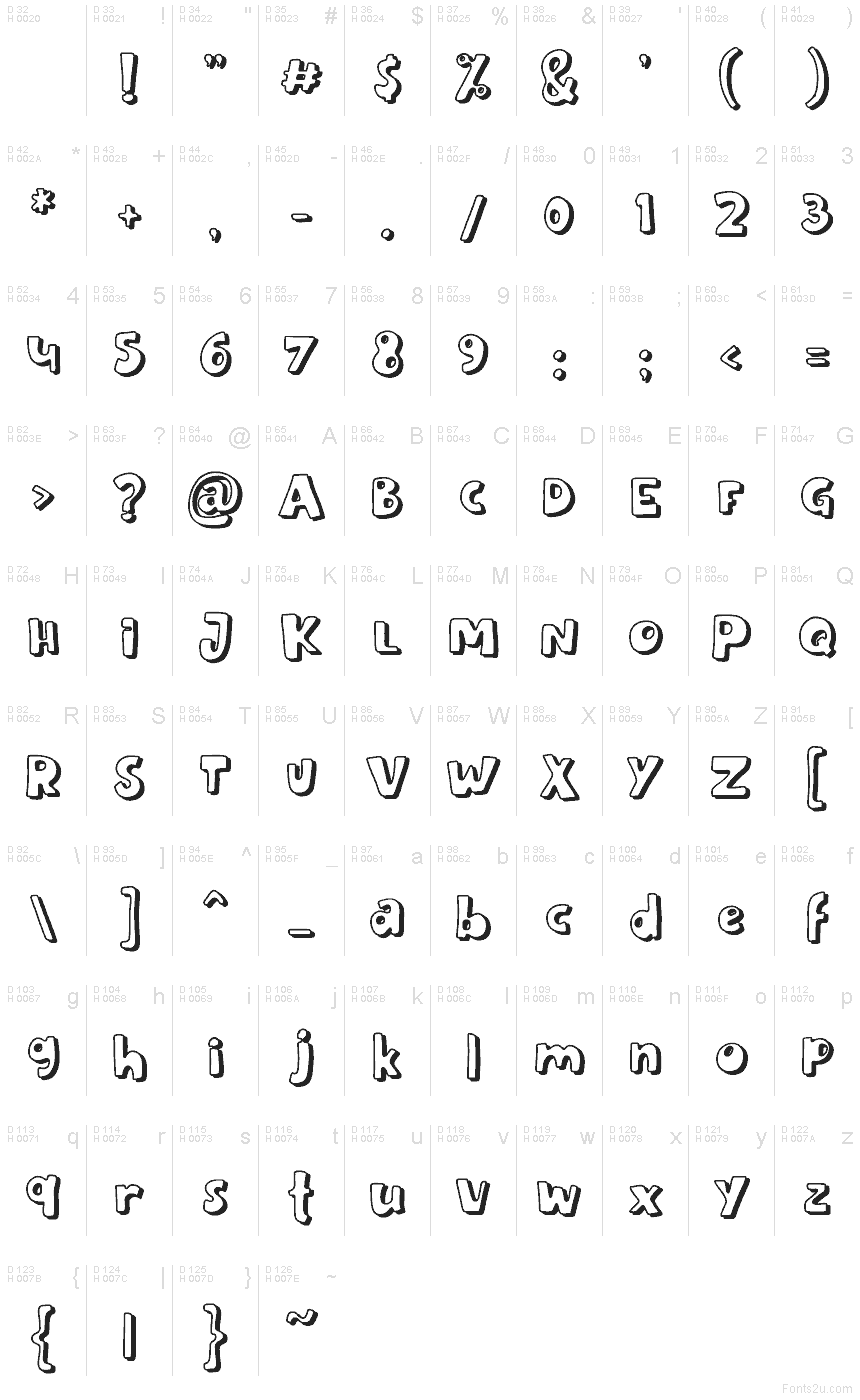
Opal Orbit Shadow
Opal Orbit Shadow font designed by PutraCetol Studio is a cartoon display font from the Opal Orbit family. Its bold style is compounded with thick strokes, wavy structure, and distinctive shadow effects that all give it visual depth. It carries retro-inspired design elements alongside its charming cartoon-like allure and thus creates a friendly overall atmosphere.
Enhance your quirky projects with the use of this font in digital games, comic title designs, movie or cartoon main poster titles, branding designs for toy products and children’s books. Opal Orbit Shadow can also be interesting in social media posts, publications headlines, pesonal blogs’ websites…